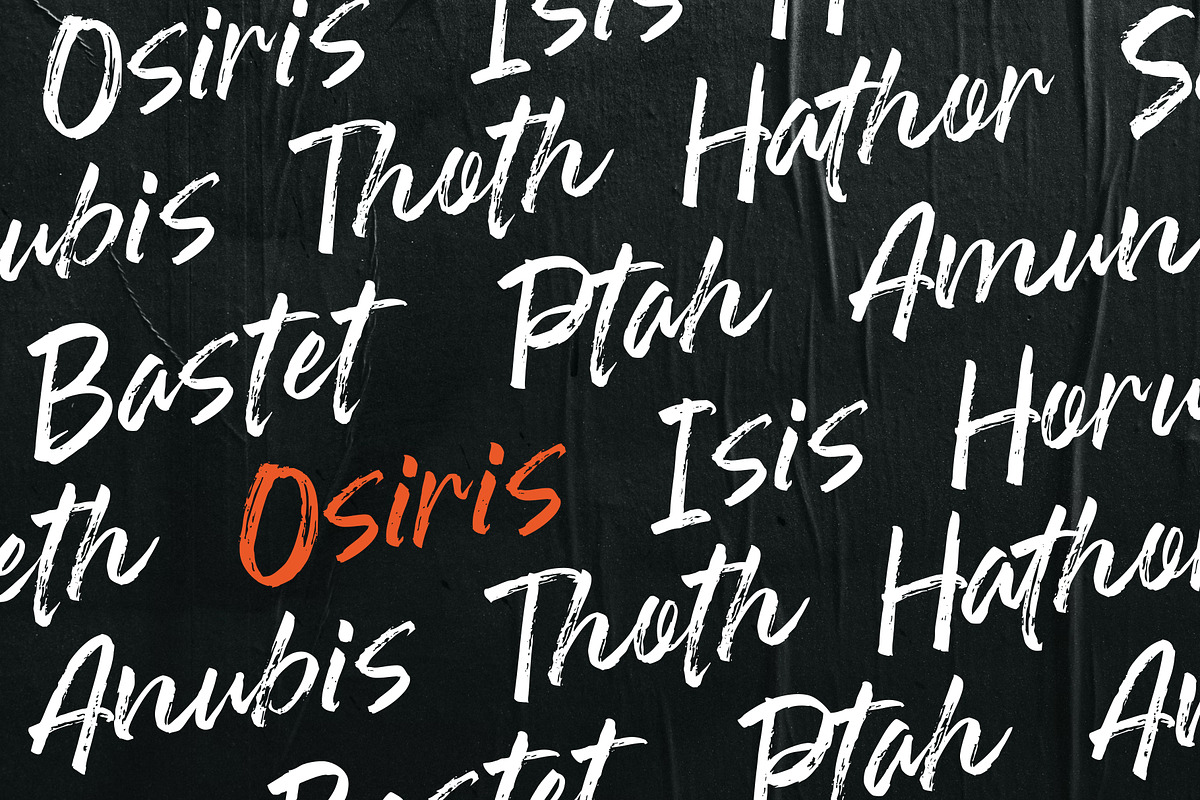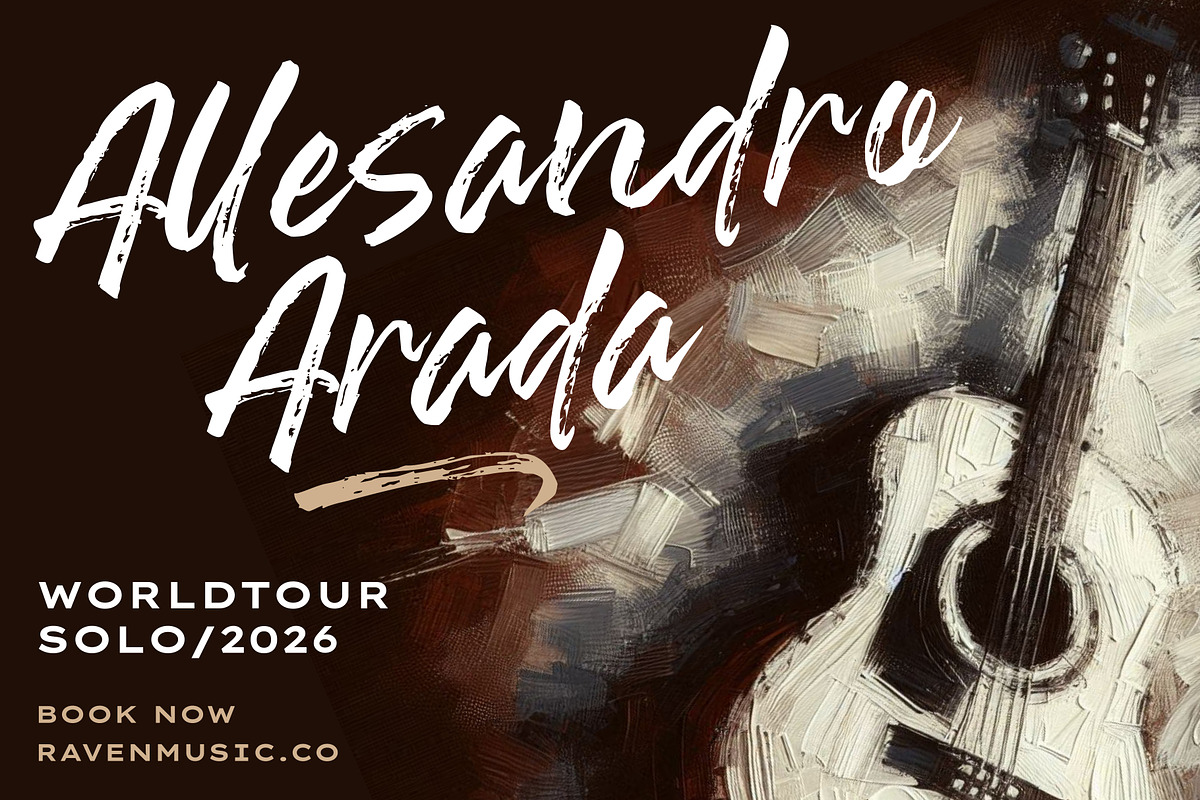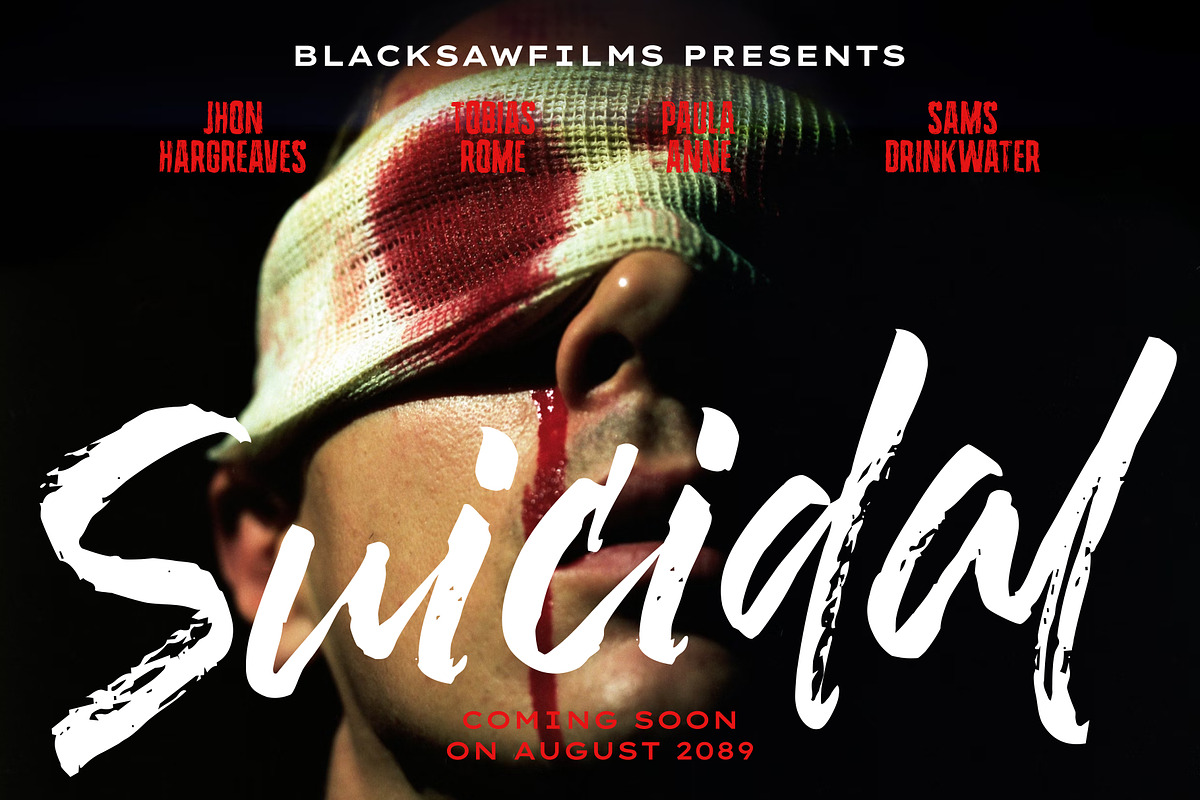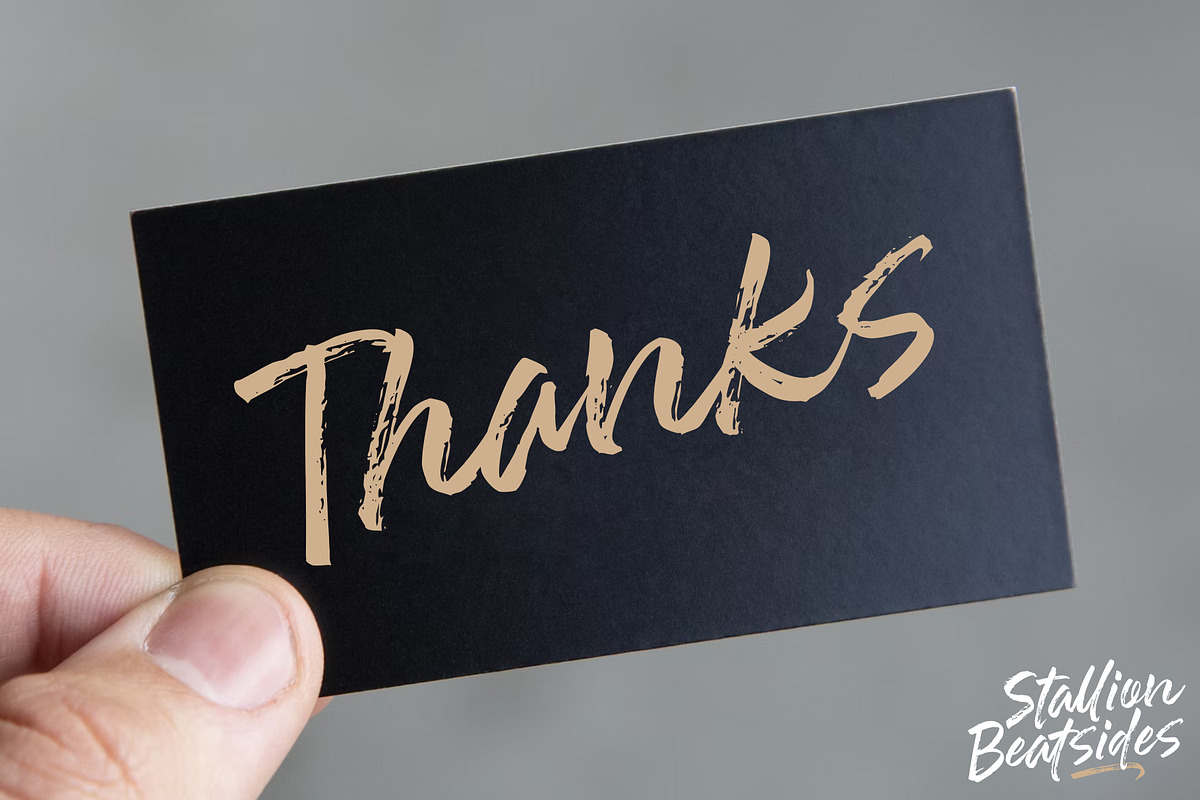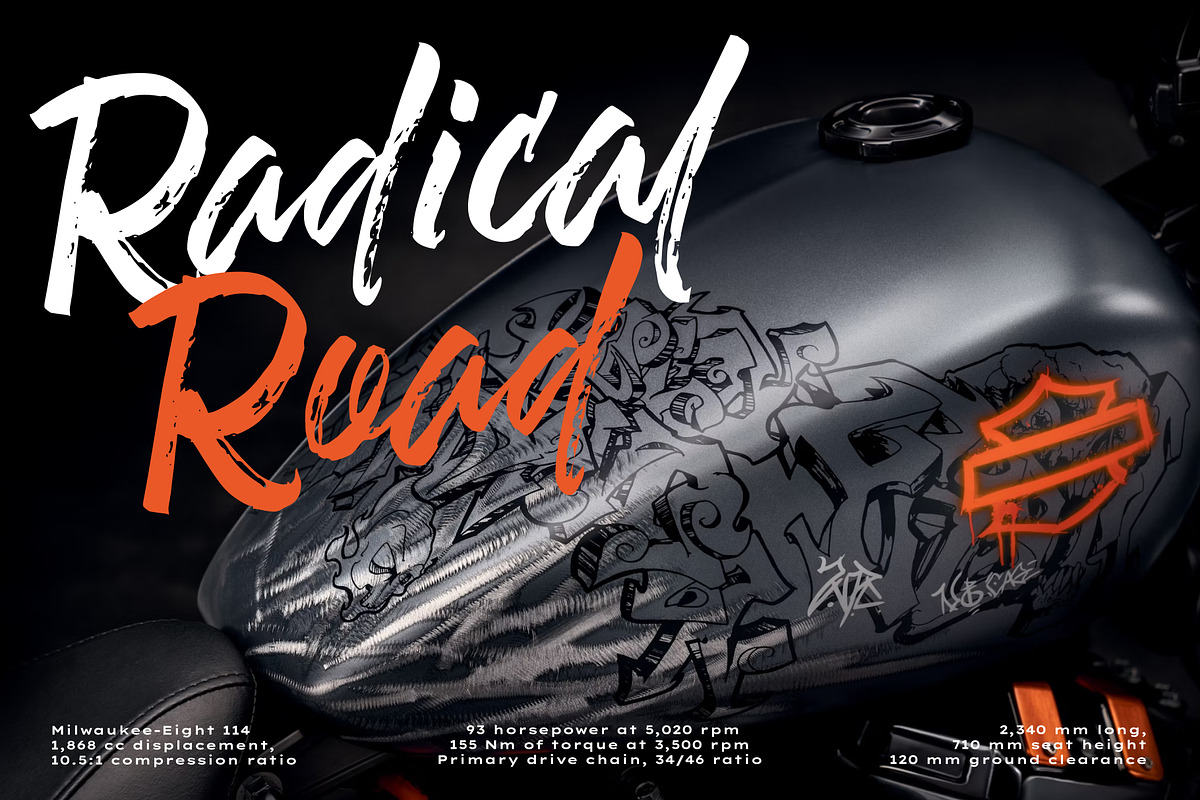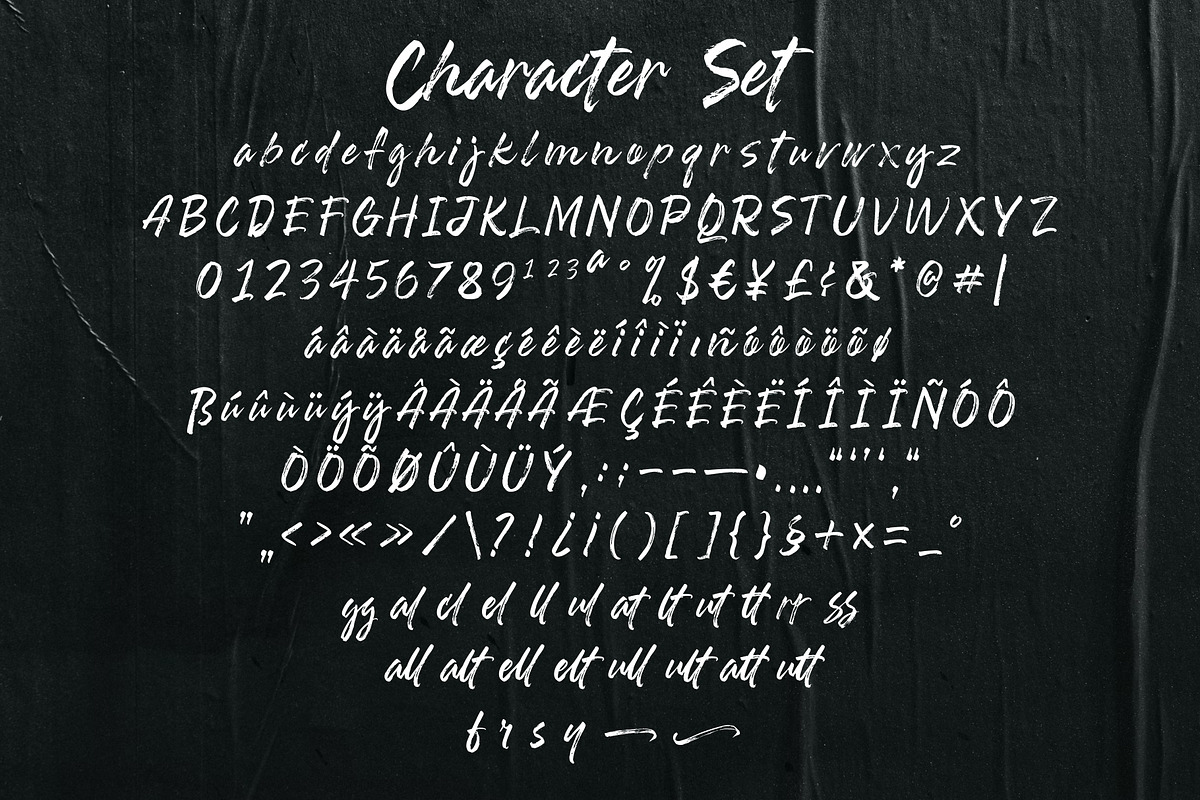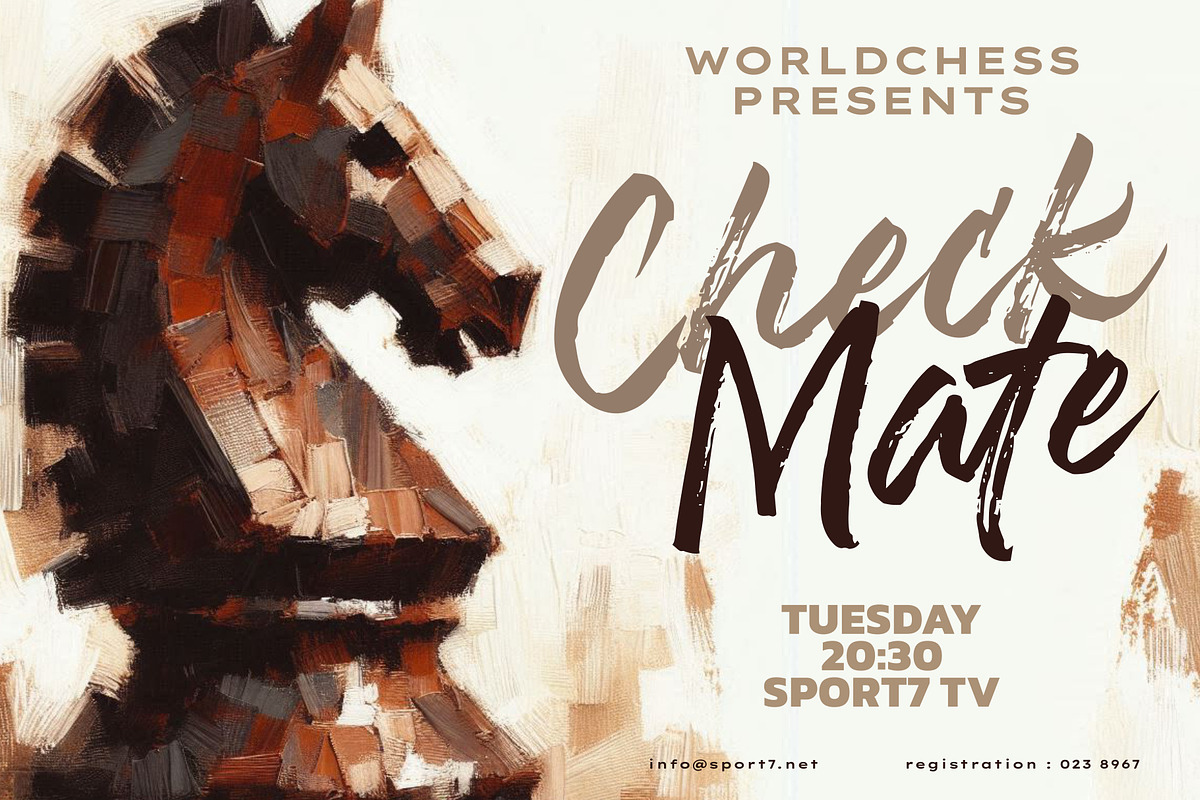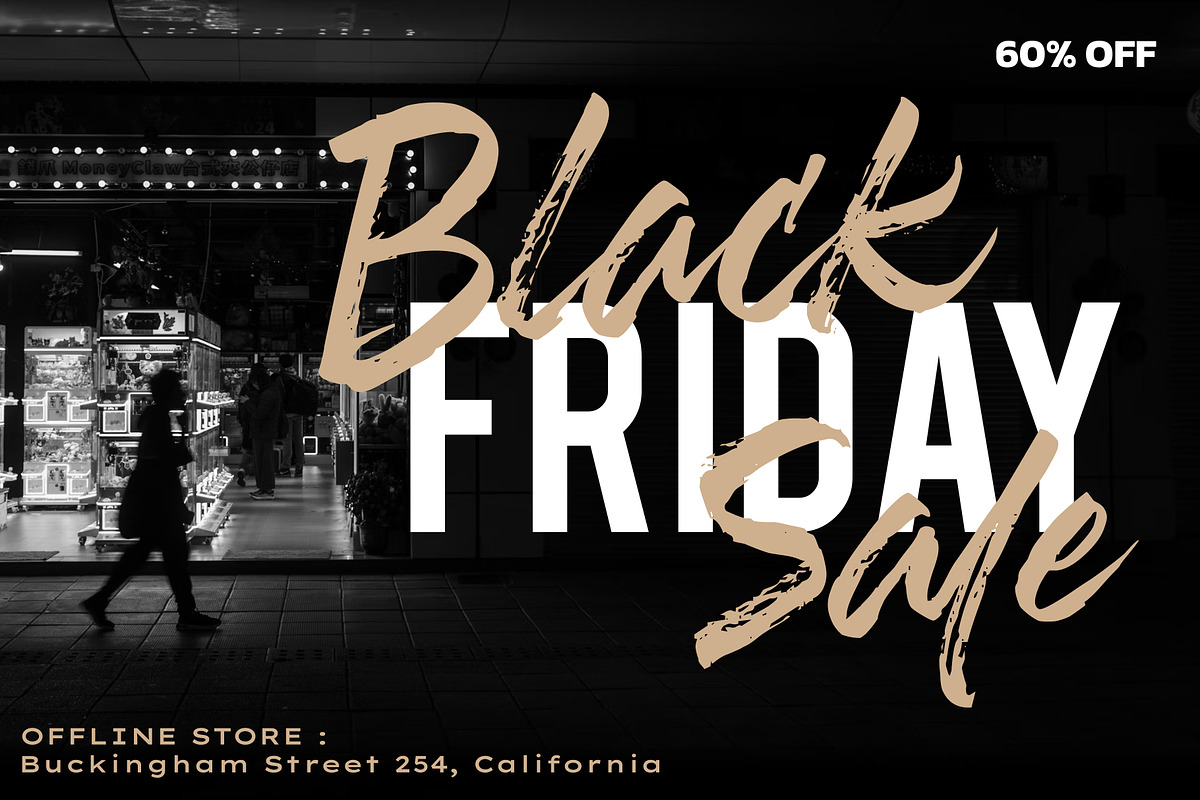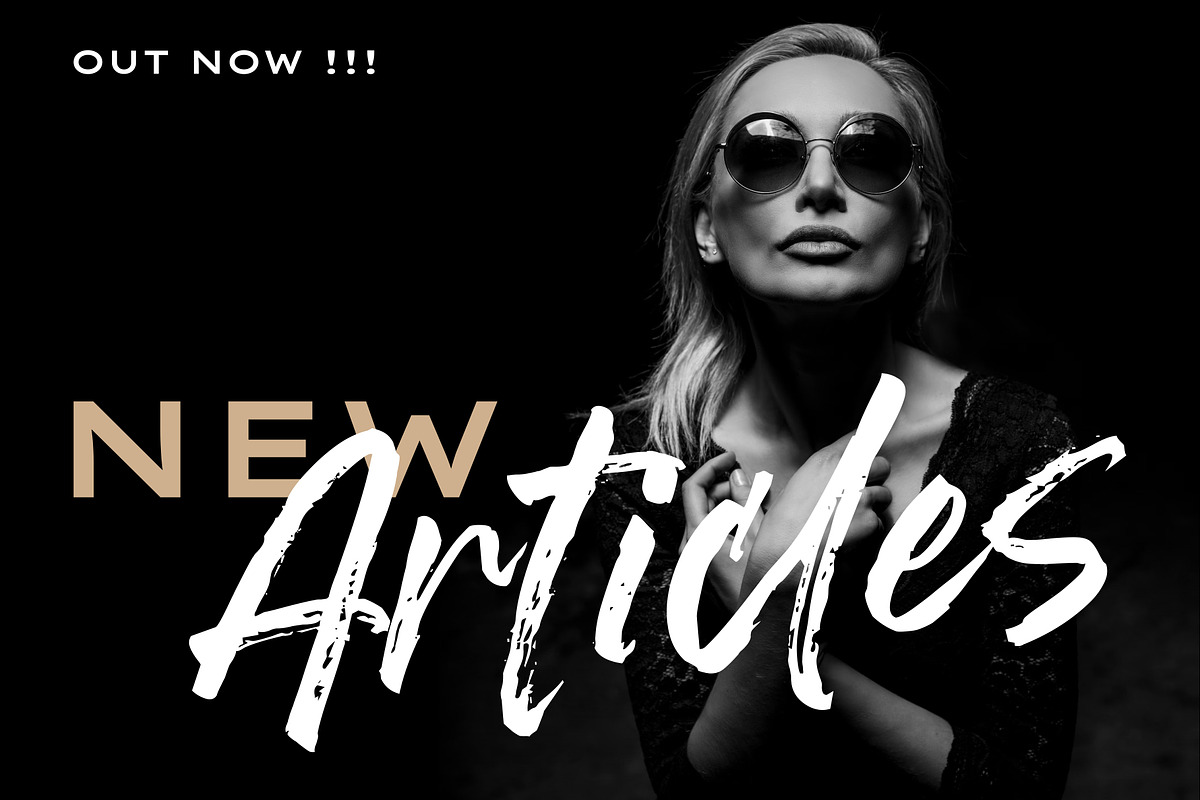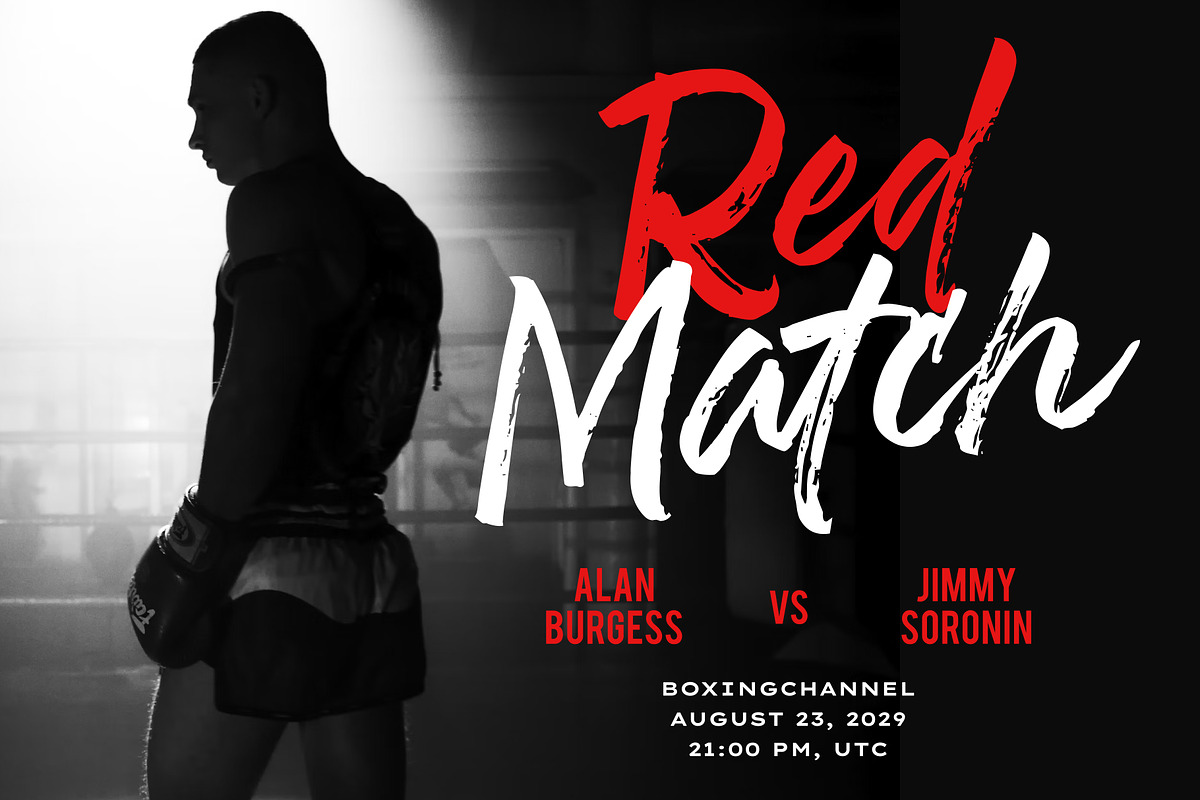
Stallion Beatsides - Dry Brush Font
Introducing Stallion Beatsides - Dry Brush Handwritten Script Font
Stallion Beatsides is a dry handwritten script brush font. This texture is very detailed. Very suitable for logos, product branding, printable templates, posters, flyers, shirts, or for text overlay to any background image. Stallion Beatsides font comes in Uppercase, Lowercase, with punctuation, numerals and ligatures.